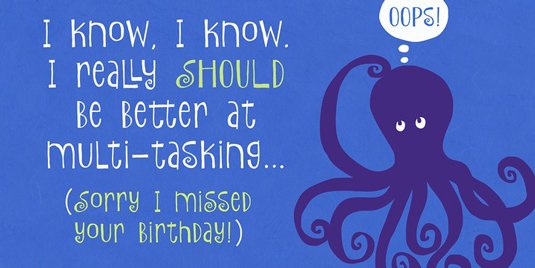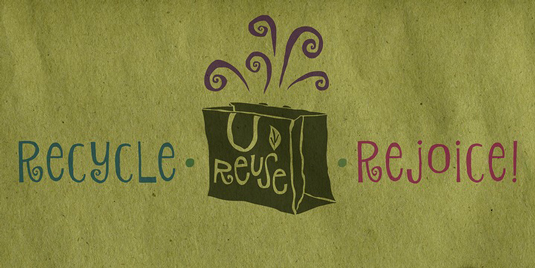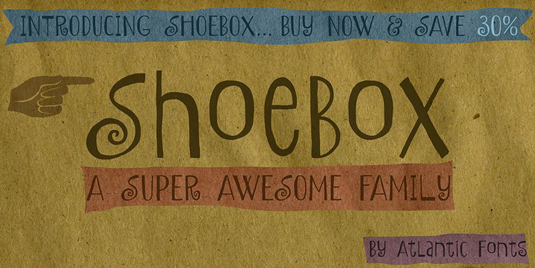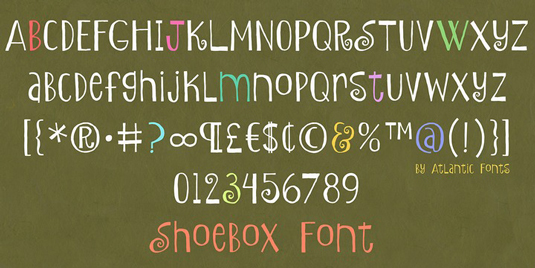
Font of the day: Shoebox
Shoebox by Amy Dietrich
Type designer Amy Dietrich is behind today's typeface of choice, Shoebox. A playful design, Shoebox is hand-drawn with double letter ligatures for upper and lower case - great for an child-themed designs.